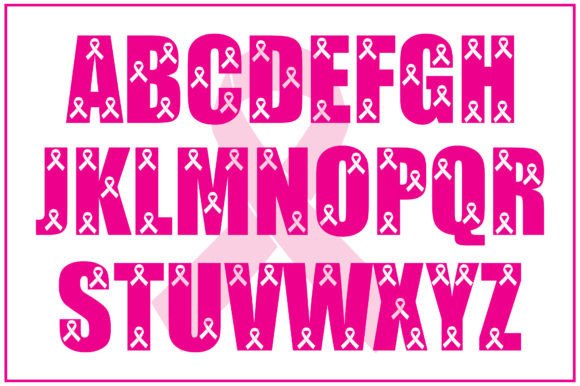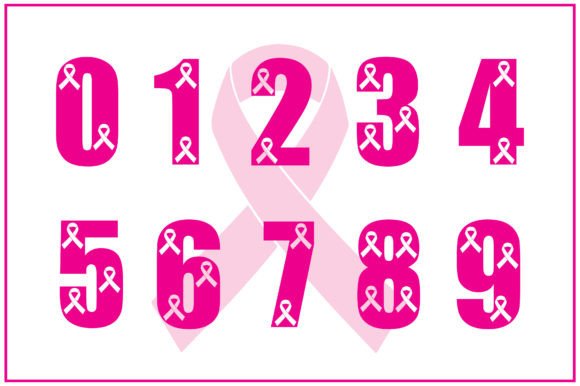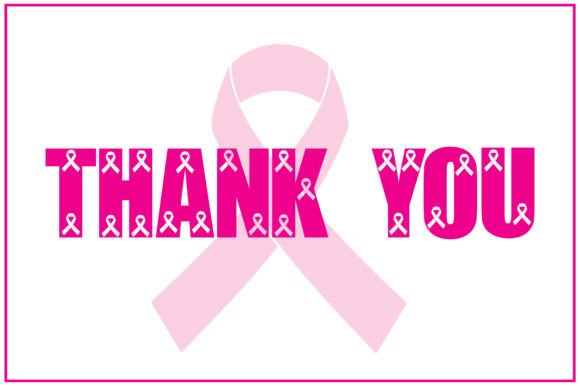
Cancer Font: The Ultimate Display Font for Unique Design Ideas
Are you tired of using the same old fonts for your design projects? Look no further than the Cancer Font, a thick lettered and incredibly unique display font that’s perfect for making a statement. In this article, we’ll dive into the features and benefits of the Cancer Font, and explore how it can be used for various design ideas, particularly those related to children’s games, science, and space exploration.
What is Cancer Font?
Cancer Font is a distinctive display font that’s designed to grab attention. Its thick, bold letters make it perfect for headlines, titles, and other applications where you want to make a statement. The font’s unique design is inspired by the zodiac sign Cancer, and its rugged, space-age aesthetic makes it ideal for projects that require a sense of adventure and exploration.
Key Features of Cancer Font
- Thick and bold letters: The Cancer Font features thick, sturdy letters that are perfect for creating eye-catching headlines and titles.
- Unique design: The font’s design is inspired by the zodiac sign Cancer, giving it a distinctive and recognizable aesthetic.
- Highly legible: Despite its bold design, the Cancer Font is highly legible, making it perfect for use in a variety of applications.
- Versatile: The Cancer Font can be used for a wide range of design projects, from children’s games to science and space exploration themes.
Design Ideas Using Cancer Font
The Cancer Font is a versatile design element that can be used in a variety of creative projects. Here are some design ideas to get you started:
Children’s Games
The Cancer Font is perfect for children’s games, such as:
- Game titles and logos: Use the Cancer Font to create bold, eye-catching titles and logos for children’s games.
- Character names and labels: Use the font to label characters, obstacles, and other game elements.
- Instructional text: The Cancer Font can be used to create instructional text, such as directions and tutorials.
Science and Space Exploration
The Cancer Font is also well-suited for science and space exploration themes, such as:
- Headlines and titles: Use the Cancer Font to create bold, attention-grabbing headlines and titles for science and space-themed articles and presentations.
- Logos and branding: The font can be used to create logos and branding elements for science and space-related organizations and businesses.
- Infographics and visualizations: The Cancer Font can be used to create informative and engaging infographics and visualizations for science and space-themed content.
Tips for Using Cancer Font
Here are some tips for using the Cancer Font in your design projects:
- Use it sparingly: The Cancer Font is a bold and attention-grabbing font, so use it sparingly to avoid overwhelming your design.
- Pair it with other fonts: The Cancer Font can be paired with other fonts to create visual interest and contrast.
- Experiment with colors: The Cancer Font can be used in a variety of colors, so experiment with different colors to find the one that works best for your design.
The Cancer Font is a unique and versatile display font that’s perfect for making a statement in your design projects. Its thick, bold letters and distinctive design make it ideal for use in children’s games, science, and space exploration themes. With its high legibility and versatility, the Cancer Font is a great addition to any designer’s toolkit.